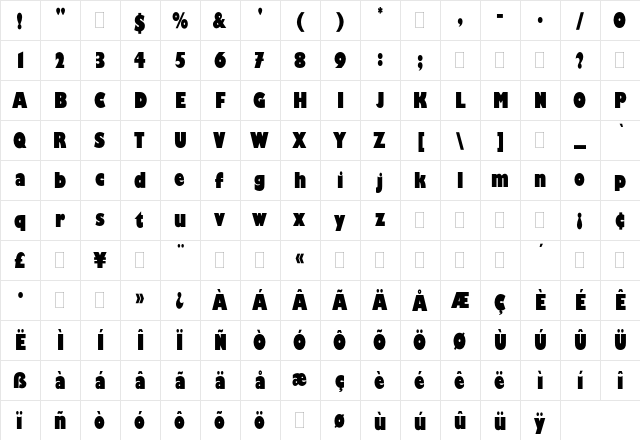
Gill Kayo Condensed Plain
Design Context for Gill Kayo Condensed Typeface
Gill Kayo Condensed takes a measured approach to typography — its balanced proportions and neutral character make it a reliable workhorse for both digital and print work. Its narrow stance lets it pack a punch even in space-constrained designs.